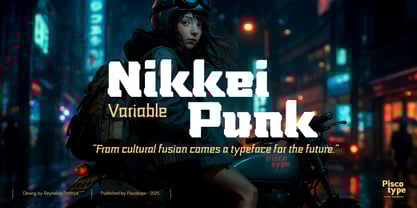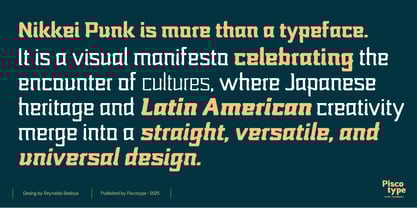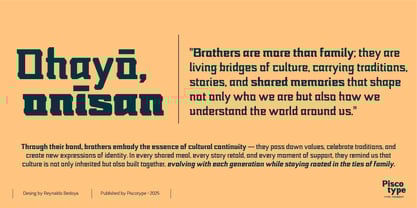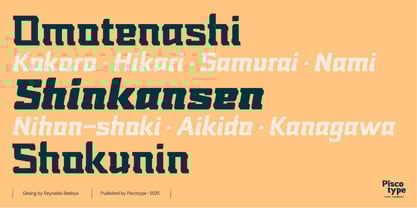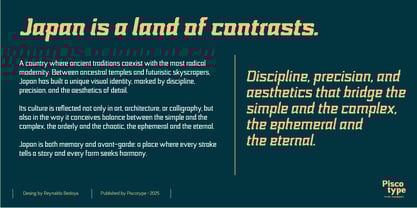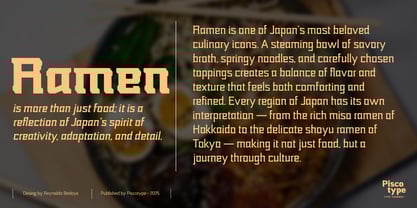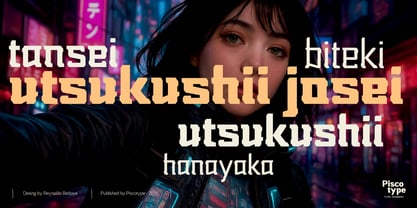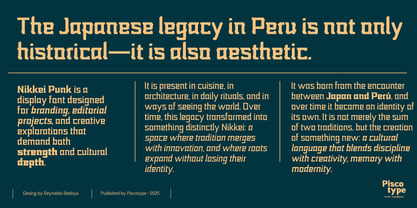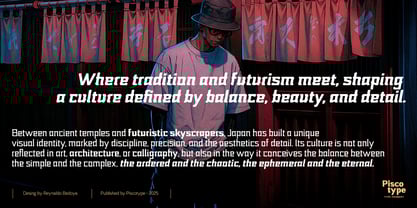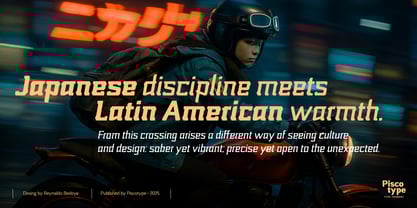
Nikkei Punk
The Nikkei Punk Font Family was designed by Reynaldo Bedoya and published by Piscotype. Nikkei Punk contains 21 styles and family package options. More about this family
Nikkei Punk is more than a typeface—it’s a bridge between cultures, Eastern and Latin. Inspired by the visual strength of Japanese heritage and the vibrant energy of cyberpunk aesthetics, this font creates a graphic language that links past and future in every stroke. Its bold, expressive forms radiate character and energy, making it ideal for projects that need a powerful, disruptive, and highly distinctive design.
Designed for posters, branding, editorial titles, and digital experiences, Nikkei Punk becomes a creative tool that celebrates the balance between tradition and futurism. A unique font that turns every word into a statement of style.